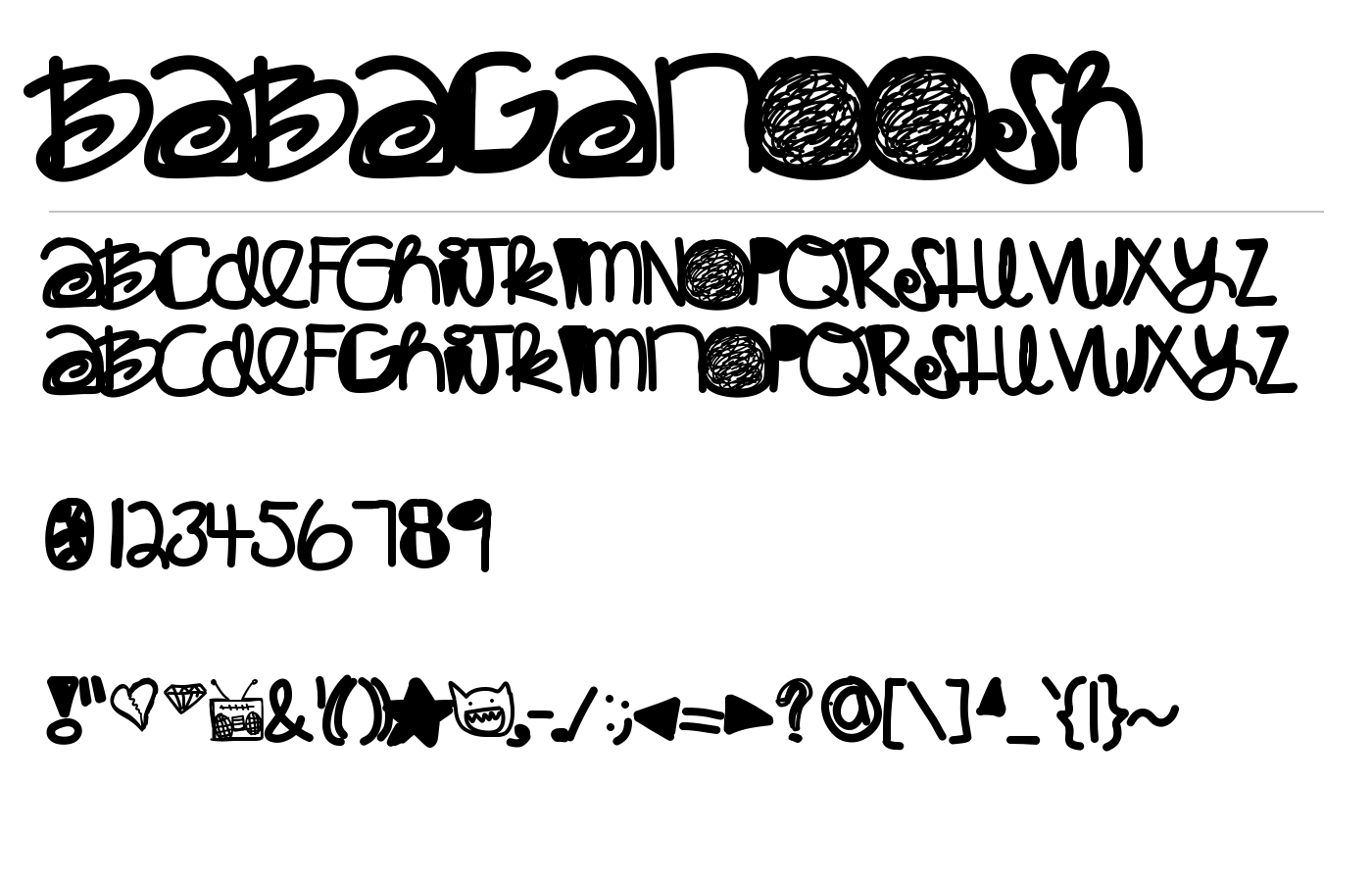
Babaganoosh is a playful, hand-drawn script font with a bold, irregular style that brings a lively, youthful energy to any design. Its quirky letterforms, featuring unique swirls and scribbled elements, make it perfect for creative projects, informal branding, and fun posters where personality and creativity are key. This font works best for headlines, logos, and playful designs that want to stand out with a casual, artistic flair.
Babaganoosh Font
About Babaganoosh Font